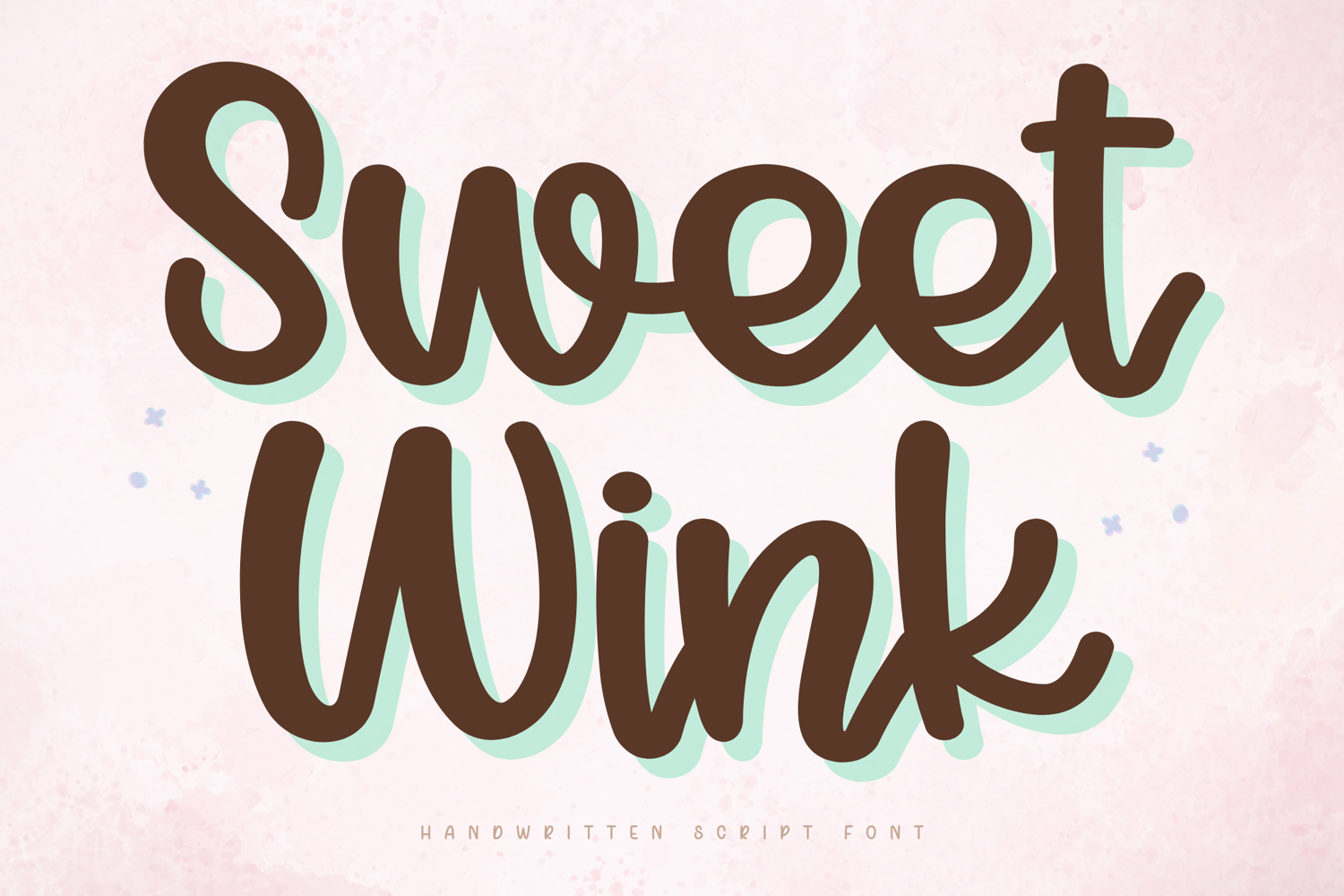
Sweet Wink - Handwritten Script Font
Sweet Wink – Handwritten Script Font
Sweet Wink is a charming handwritten script font with a playful and feminine personality. Designed with bold rounded strokes and smooth flowing curves, this font captures a warm, cheerful aesthetic that feels both cute and modern.
Its soft handwritten style makes Sweet Wink perfect for Cricut projects, planner covers, journal pages, stickers, branding, packaging, and social media graphics. The letters are highly readable while maintaining a fun and expressive character that instantly adds personality to any design.
Key Features:
Uppercase and lowercase letters
Numbers and punctuation
Smooth handwritten script style
Bold and highly readable letterforms
Perfect For:
Cricut and Silhouette projects
Planner and journal designs
Stickers and printable products
Logos & Branding
Product packaging and labels
Social media graphics
Best Use Cases:
Sticker shops
Candle labels
Tote bags and mugs
Shop branding
Packaging design
Planner dashboards
Design Style:
Sweet Wink combines a playful handwritten look with clean usability. Its rounded shapes and balanced proportions create a friendly, approachable style that works beautifully across many creative projects